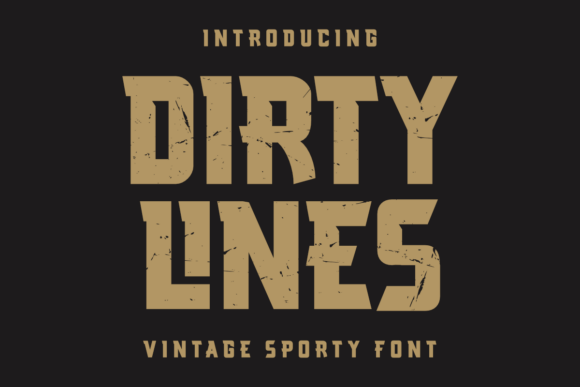
The Perfect Font for the Unapologetic Athlete
Have you ever been inspired by the rough-around-the-edges aesthetic of vintage sports jerseys and worn-out gear? The kind of look that screams ‘I’ve been through the trenches and come out on top’? For designers, that moment of creative spark is what makes the Dirty Lines Font truly special.
This bold, vintage-inspired sporty font exudes grit, strength, and raw energy, making it perfect for streetwear branding, extreme sports posters, and team apparel. Its distressed texture and sharp cuts are inspired by retro sports typography, giving it a rugged personality that commands attention. Whether you’re designing for motocross, outdoor adventure brands, or nostalgic sports visuals, the Dirty Lines Font brings a bold impact with unmistakable attitude.
Dirty Lines Font Key Features
- Font Size: The font comes in 4 different font sizes: Dirty Lines (Regular), Dirty Lines (Bold), Dirty Lines (Italic), and Dirty Lines (Bold Italic), catering to various design requirements.
- Unique Characteristics: The font’s distressed, vintage aesthetic and subtle texture give it a unique, eye-catching look that’s perfect for adding a touch of nostalgia to designs.
- Character Set: Dirty Lines Font includes a comprehensive character set, including Latin, Cyrillic, and Greek alphabets, making it suitable for multilingual designs.
Dirty Lines Font Review
I recently had the chance to dive into the Dirty Lines Font, and I must say, it’s a unique addition to any design project. ✨ One thing that stands out is the font’s ability to add a touch of edginess and sophistication. The bold lines and modern aesthetic make it perfect for headlines and titles that demand attention.
The font also comes with a wide range of weights and styles, allowing for a high degree of customization and flexibility. ✨ This makes it an excellent choice for designers who want to create a cohesive visual identity across different platforms.
While the Dirty Lines Font has its strengths, there are a few areas where it falls short. ⚠️ One of the main concerns is the font’s readability in smaller sizes. At certain resolutions, the bold lines can become overwhelming, making it difficult to discern individual letters.
- Limited support for certain languages and character sets.
- Can be overwhelming in smaller sizes or low-resolution environments.
Despite its limitations, the Dirty Lines Font is an excellent choice for designers who want to add a touch of modernity and sophistication to their projects. With its wide range of customization options and edgy aesthetic, it’s sure to make a statement. However, designers should be aware of its limitations and adjust their usage accordingly.
Dirty Lines Font is perfect for:
- Casual, grungy designs
- Distressed or worn-out textures
- Emphasizing a vintage or retro aesthetic
Remember to use the font in moderation and balance it with other design elements to avoid overwhelming the viewer.